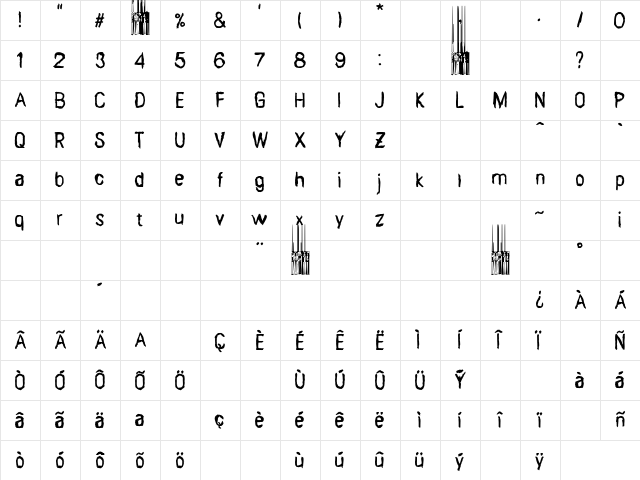
Stigma Poster Regular
Designer: Woodcutter Manero
Design Context for Stigma Poster
Stigma Poster is a composed and adaptable typeface that performs quietly and consistently across a wide range of design contexts.